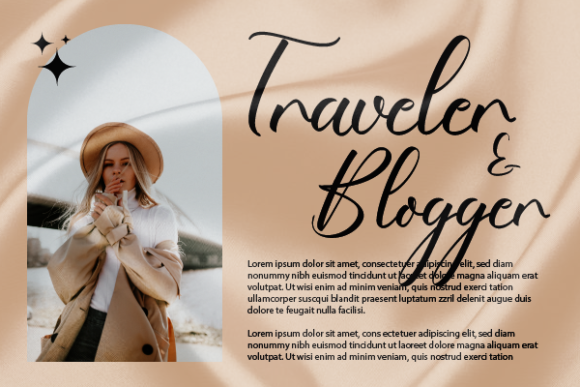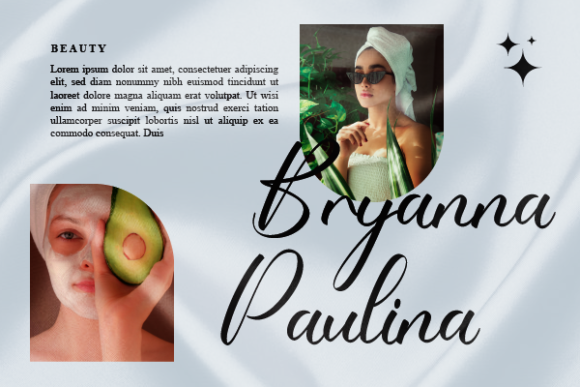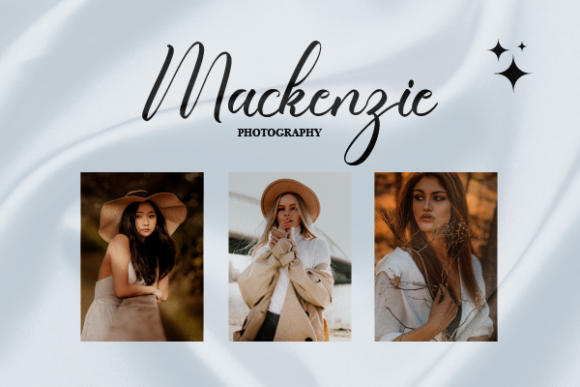
Introduction to Shayla Font
Shayla is a delicate and fashionable script font.
It is perfect for any branding project such as logos, t-shirt printing, creative products, and more It will look extraordinary in a variety of contexts.
Key Features of Shayla Font
Why Choose Shayla Font?
Shayla Font offers exceptional quality and versatility, making it a valuable addition to your design toolkit. Whether you’re creating for personal projects or commercial use, Shayla Font delivers professional results.